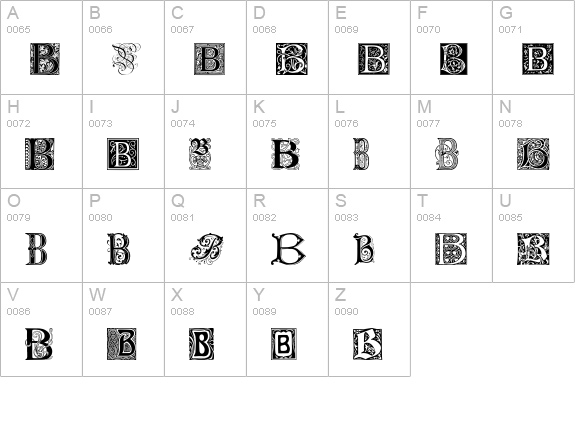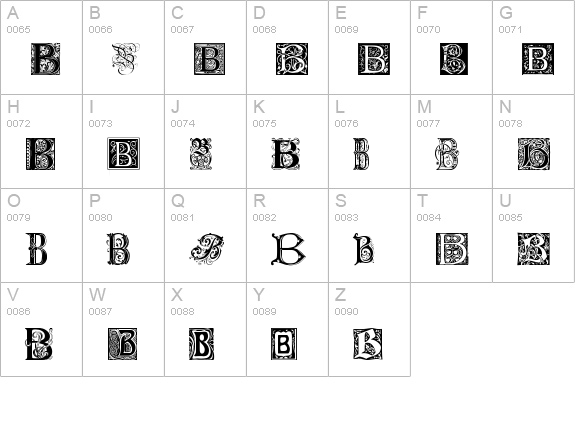
Ornamental Initials B Font Details
Ornamental Initials B font is a stunning and intricate typeface that exudes elegance and sophistication. With its ornate details and captivating design, this font is perfect for adding a touch of luxury to your projects. The ornamental initials are beautifully crafted, making them ideal for use in titles, invitations, and other decorative elements. Best of all, Ornamental Initials B font is completely free to download at FontsMarket.com. Whether you're a designer looking to enhance your creations or a hobbyist wanting to add a special flourish to your projects, this font is a fantastic choice. Don't miss out on the opportunity to elevate your designs with the timeless beauty of Ornamental Initials B font. Download it today and let your creativity shine!